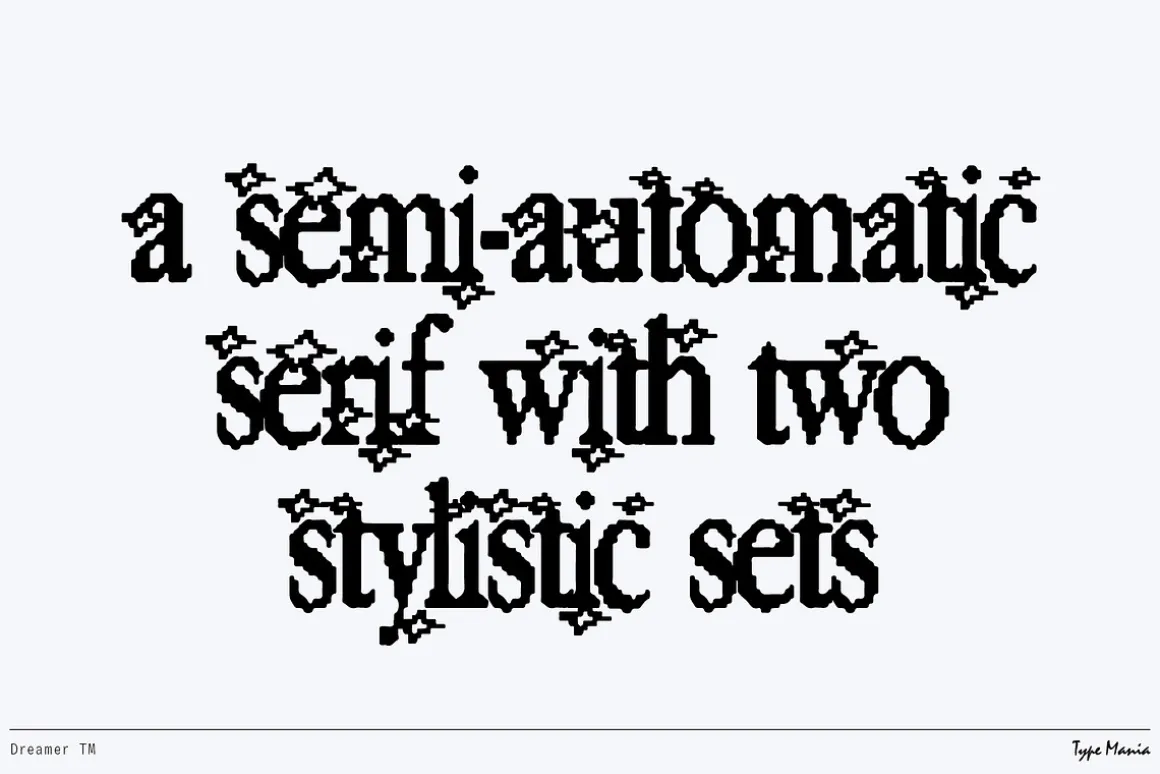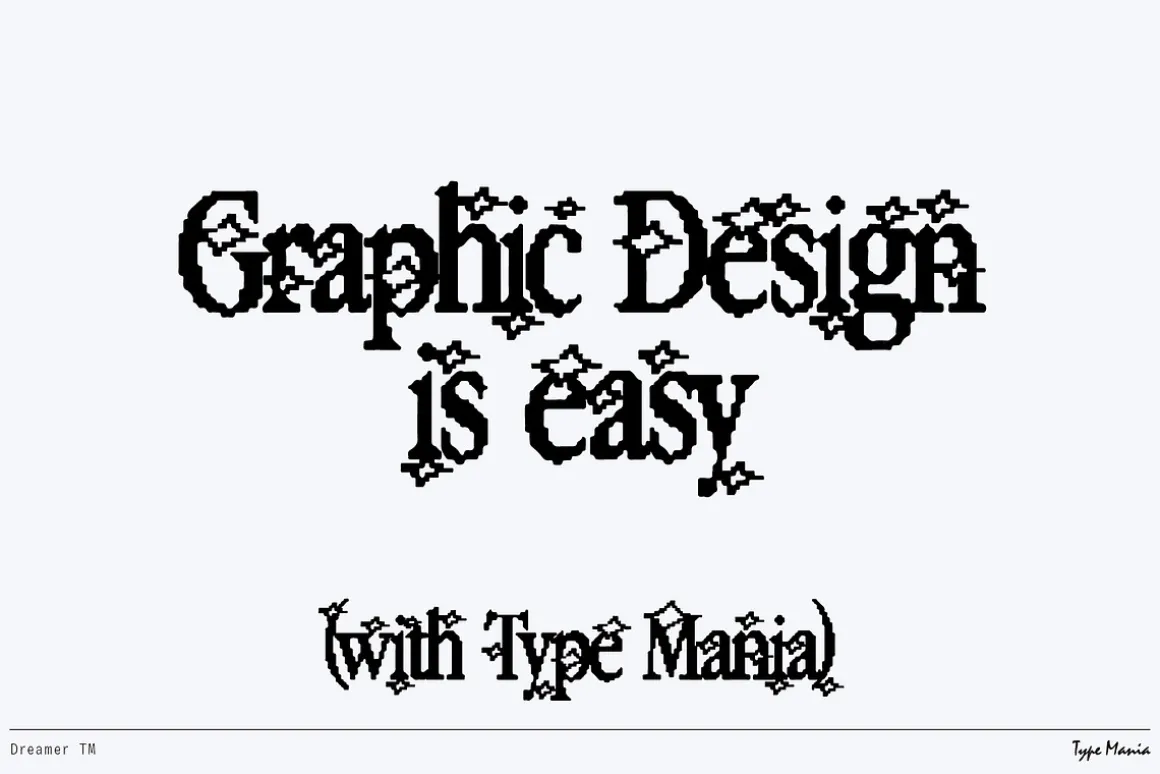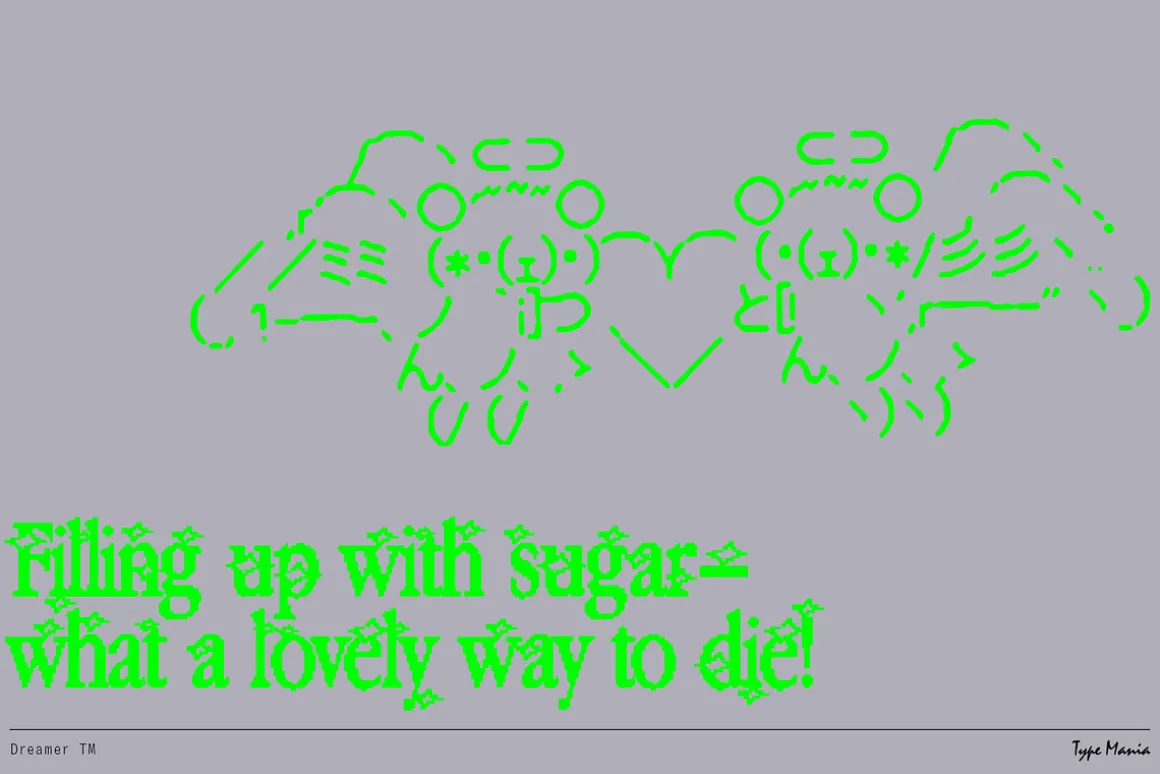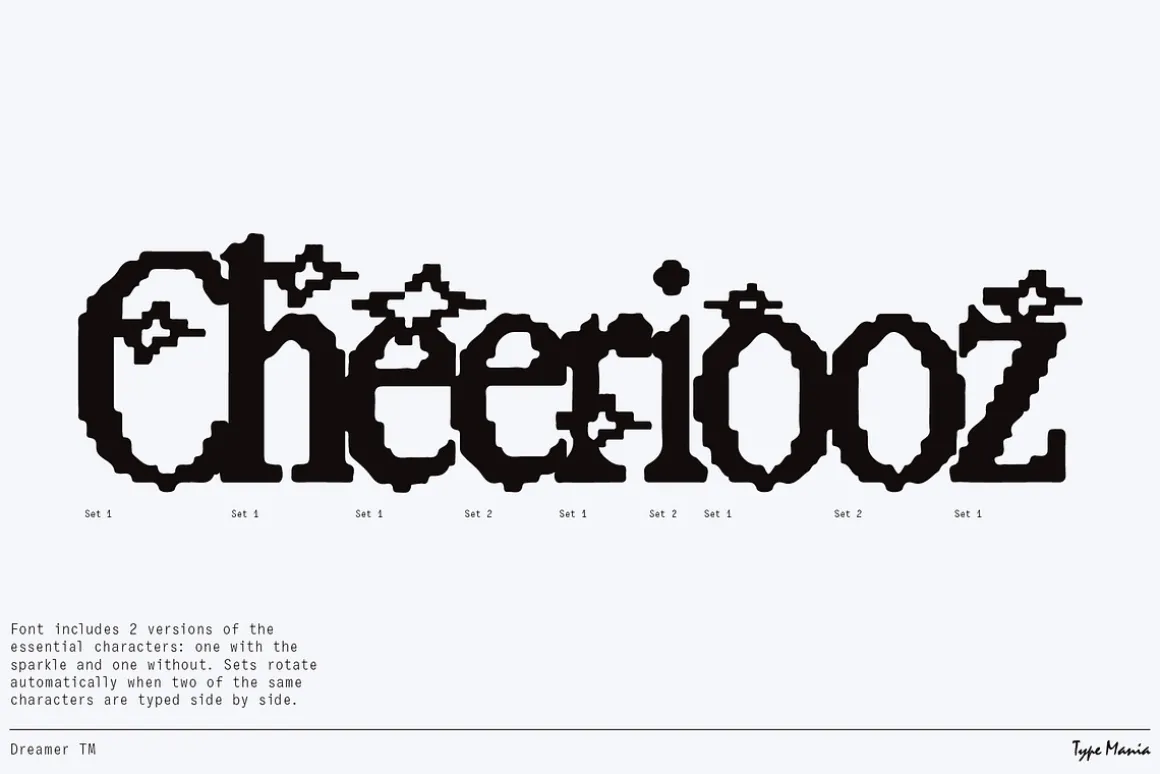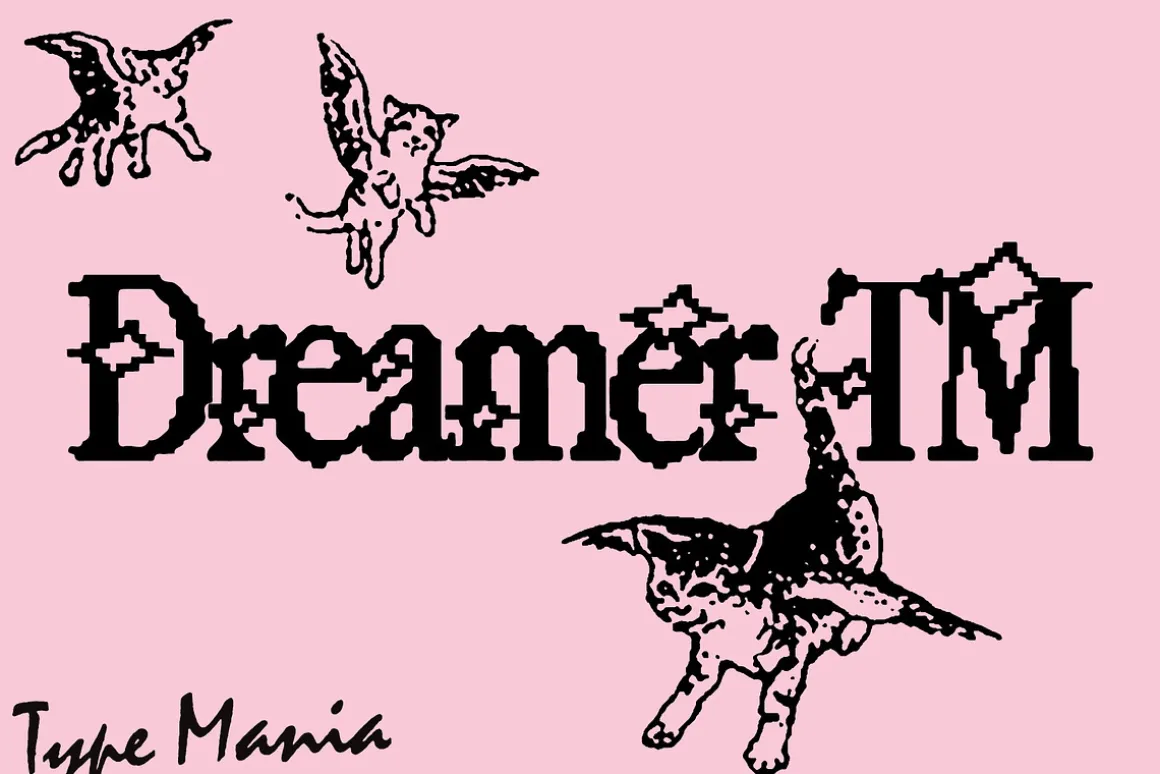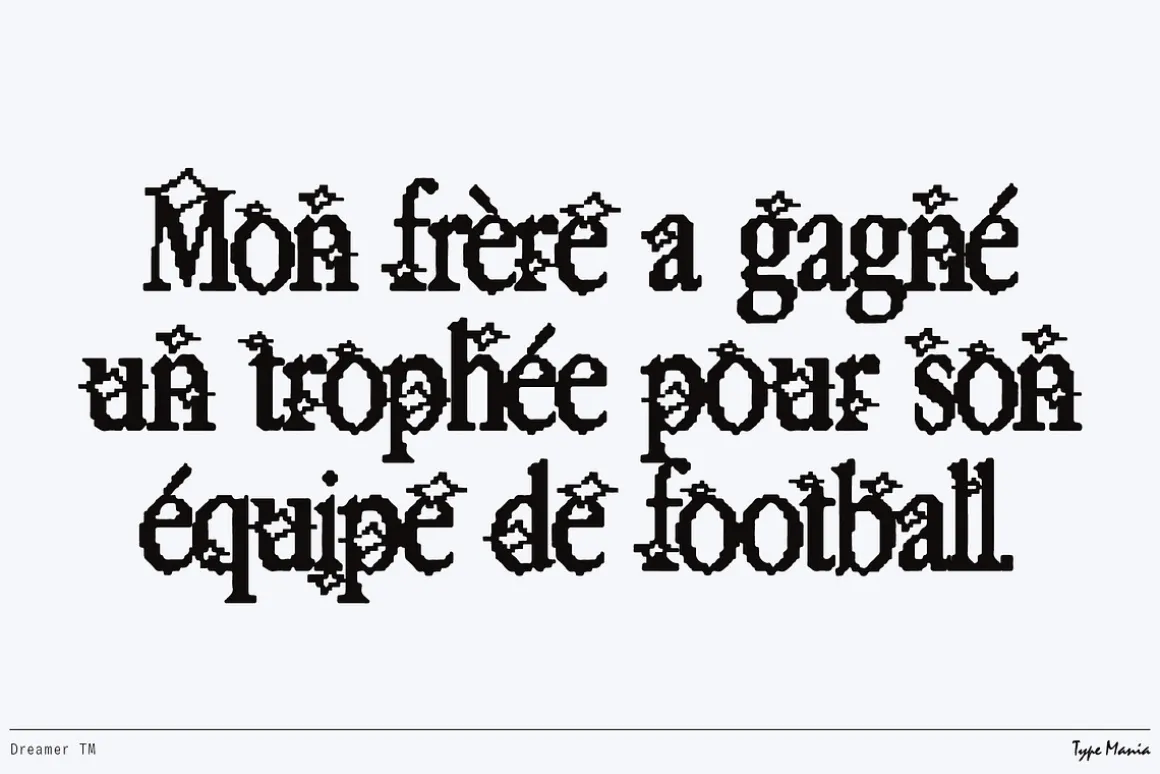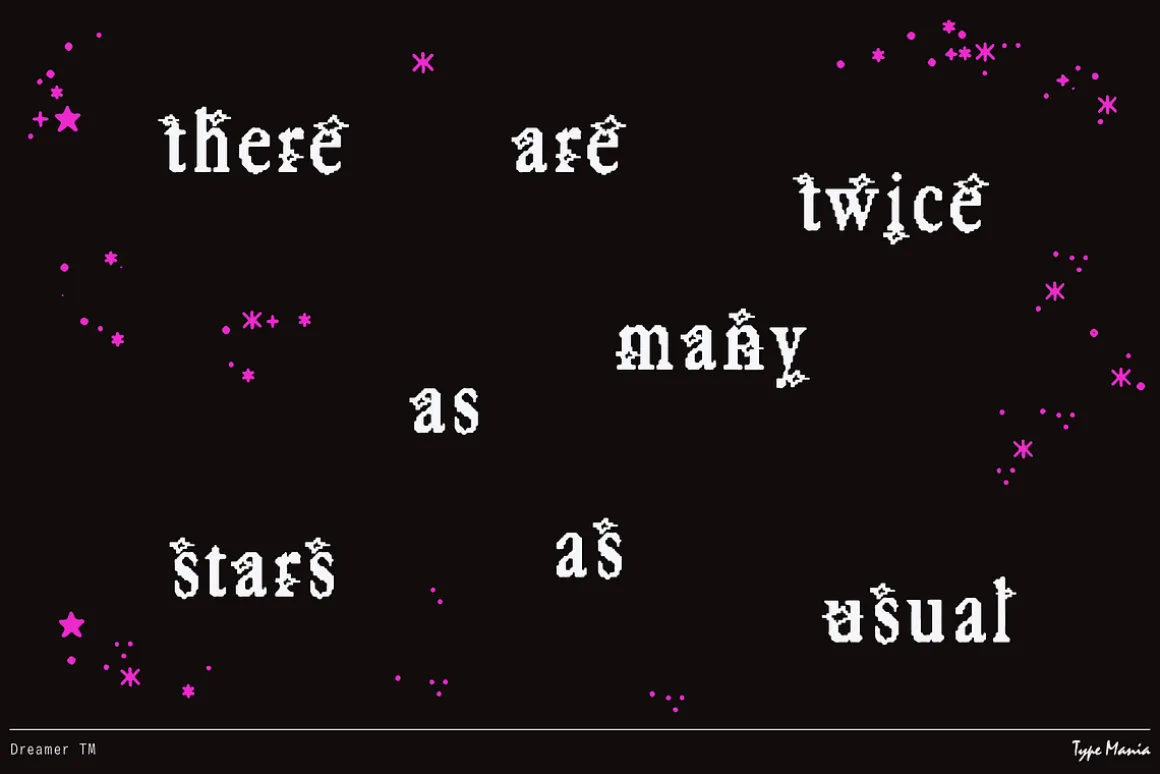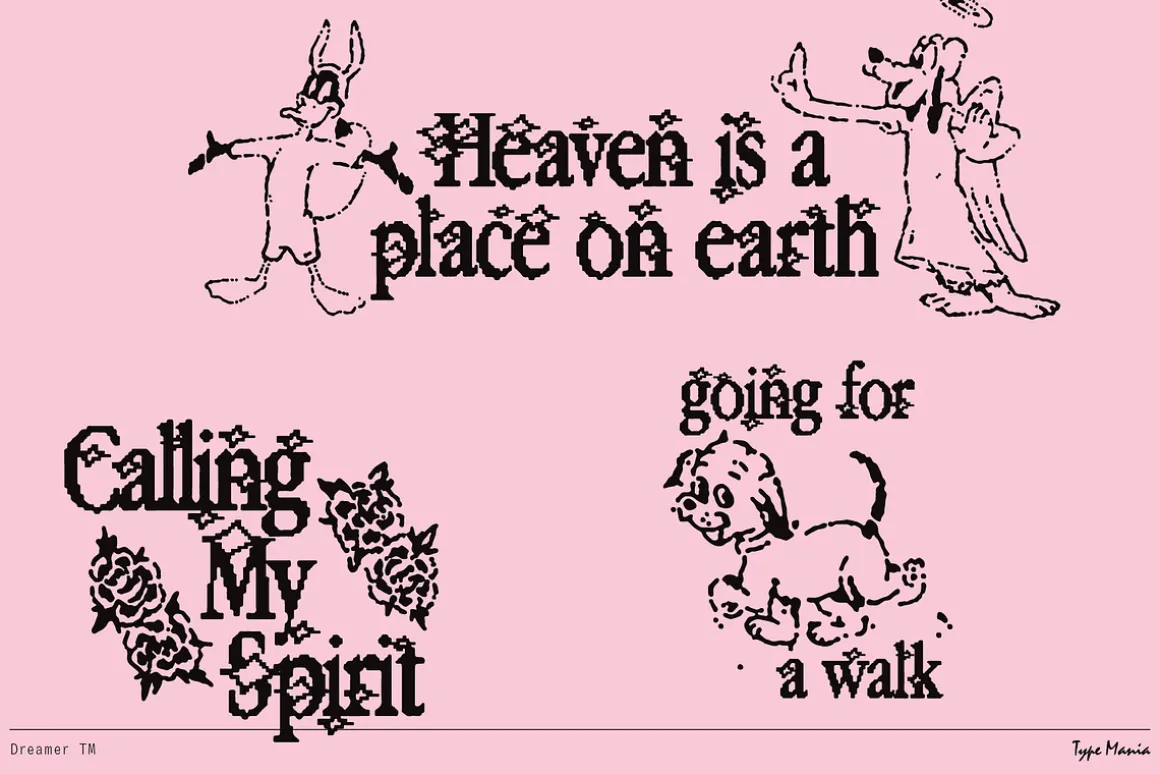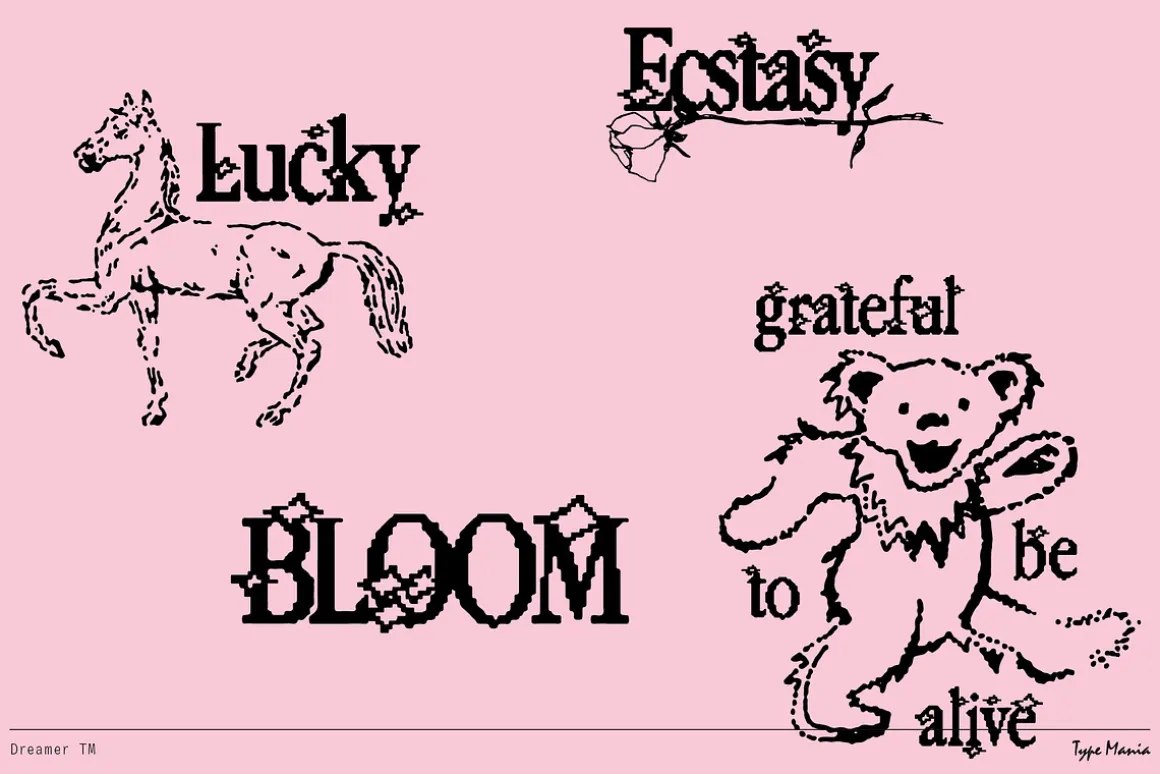
Drift into the fantastic world of Dreamer TM, our emotive serif font channeling the Y2K aesthetics. Whether you’re designing a poster, creating a logo, or adding a nostalgic touch to your branding, Dreamer TM lends an edgy twist to your project ⋆𐦍.ೃ࿔*:・
OpenType features
- 2 stylistic sets
- The font is programmed to automatically shift between the stylistic sets whenever the same glyphs are typed side by side